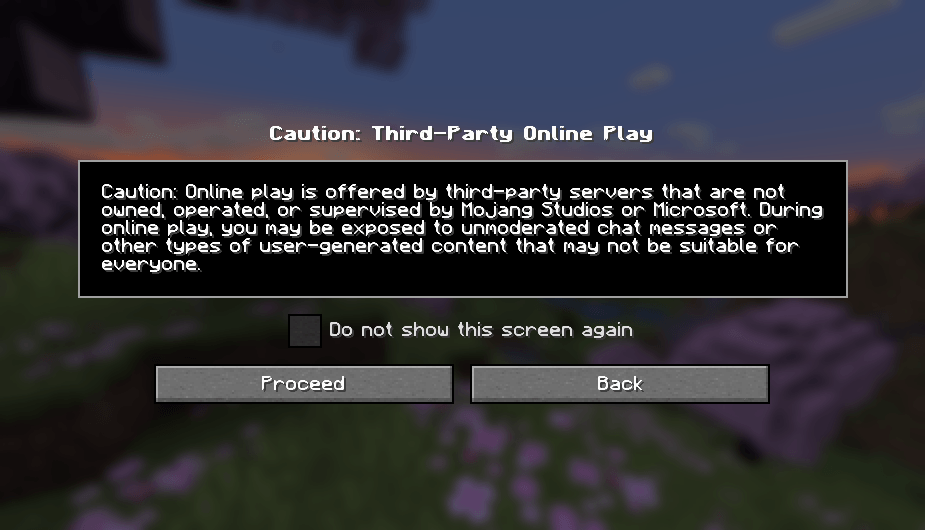
Smooth Font – Heycronus Texture Pack (26.1.2)
Smooth Font – Heycronus is a Minecraft texture pack. It makes your game’s font smoother and easier to read. This pack refines letterforms and softens edges for better readability.
Features:
- Enhances the game’s text appearance.
- Makes the font smoother and easier to read.
- Provides clearer and more visually pleasing text.
- Softens letter edges and refines forms.
- Improves overall readability in the game.